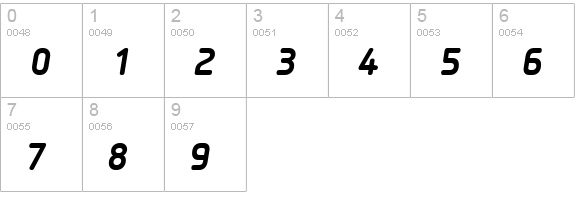
PFIsotextPro-BoldItalic Font Details
PFIsotextPro-BoldItalic is a modern and versatile font that exudes a sense of boldness and sophistication. With its unique blend of sharp angles and elegant curves, this typeface is perfect for making a statement in your design projects. Whether you're creating a striking poster, a sleek website, or a stylish branding campaign, PFIsotextPro-BoldItalic is sure to capture attention and leave a lasting impression. What's even better is that this exceptional font is available for free download at FontsMarket.com. Yes, you read that right - you can get your hands on this premium font without spending a dime. So why wait? Elevate your designs with PFIsotextPro-BoldItalic today and let your creativity shine with this captivating typeface.